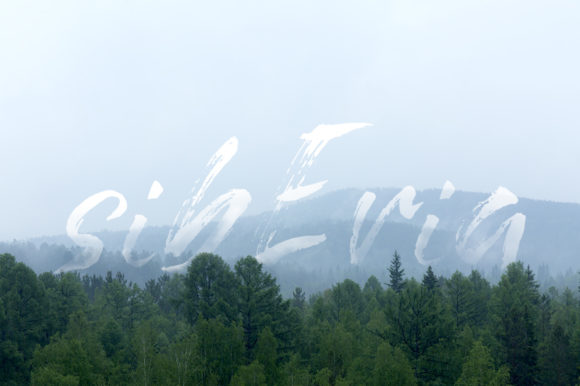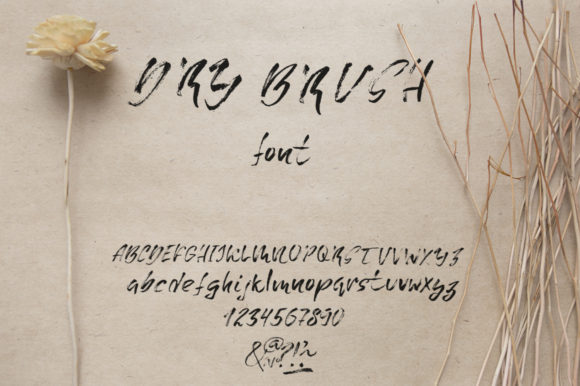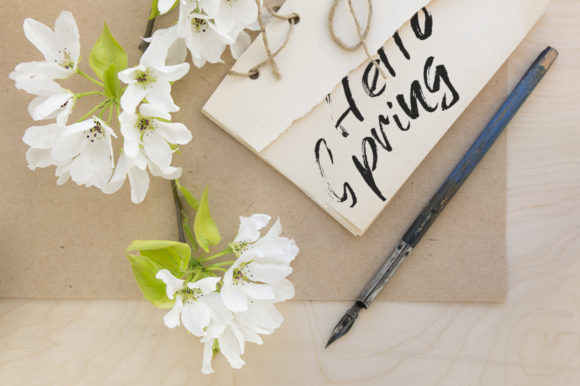
Discover the Timeless Elegance of Dry Brush Font
Remember that moment when you stumbled upon the perfect font that made your design come alive? For designers, it’s a moment of pure magic. And for those who crave something unique, we’re excited to introduce you to Dry Brush Font – a gorgeous and timeless handwritten brush font that’s sure to captivate your audience.
Dry Brush Font is designed to add a touch of sophistication and elegance to your designs. Whether you’re creating a logo, quote, invitation, business card, or PowerPoint presentation, this font is the perfect choice to elevate your work. Its incredibly stylish look makes it a valuable addition to any designer’s toolkit.
Dry Brush Font Key Features
- Unique Brush Effect: The Dry Brush Font features a distressed, brush-like effect that mimics hand-painted textures, giving it a unique and artistic feel.
- Script and Regular Styles: Includes both script and regular styles, providing versatility for various design needs.
- Perfect for Creative Projects: The Dry Brush Font is ideal for creative projects, such as branding, packaging, and editorial design, where a unique and artistic touch is desired.
Dry Brush Font Review
Overall, I’m quite impressed with the Dry Brush Font. ✨ It’s perfect for those looking for a distressed, hand-drawn feel. The font’s rough edges and imperfections add a unique touch to any design project.
- Unique aesthetic: The Dry Brush Font’s distressed look is instantly recognizable and sets it apart from more traditional fonts.
- High-resolution images: The font’s high-resolution images ensure that the text remains crisp and clear even when scaled up.
- Customization options: The font offers various customization options, including color, size, and spacing, making it easy to integrate into any design.
However, there are some limitations to consider. ⚠️ The font’s rough edges can sometimes be difficult to read, especially in smaller sizes or when used for large blocks of text.
- Readability issues: The font’s distressed look can make it challenging to read, especially for those with visual impairments.
- Limited language support: The font may not be compatible with all languages or character sets.
Overall, I’d give the Dry Brush Font 4 out of 5 stars. It’s a great choice for designers looking for a unique, hand-drawn feel, but may not be suitable for all types of projects or audiences.
The Dry Brush Font is ideal for creating a distressed or vintage look in your designs. Common use cases include:
- Creating a rustic or country-themed design.
- Adding texture and depth to a title or heading.
- Creating a distressed or worn look for a logo or branding.